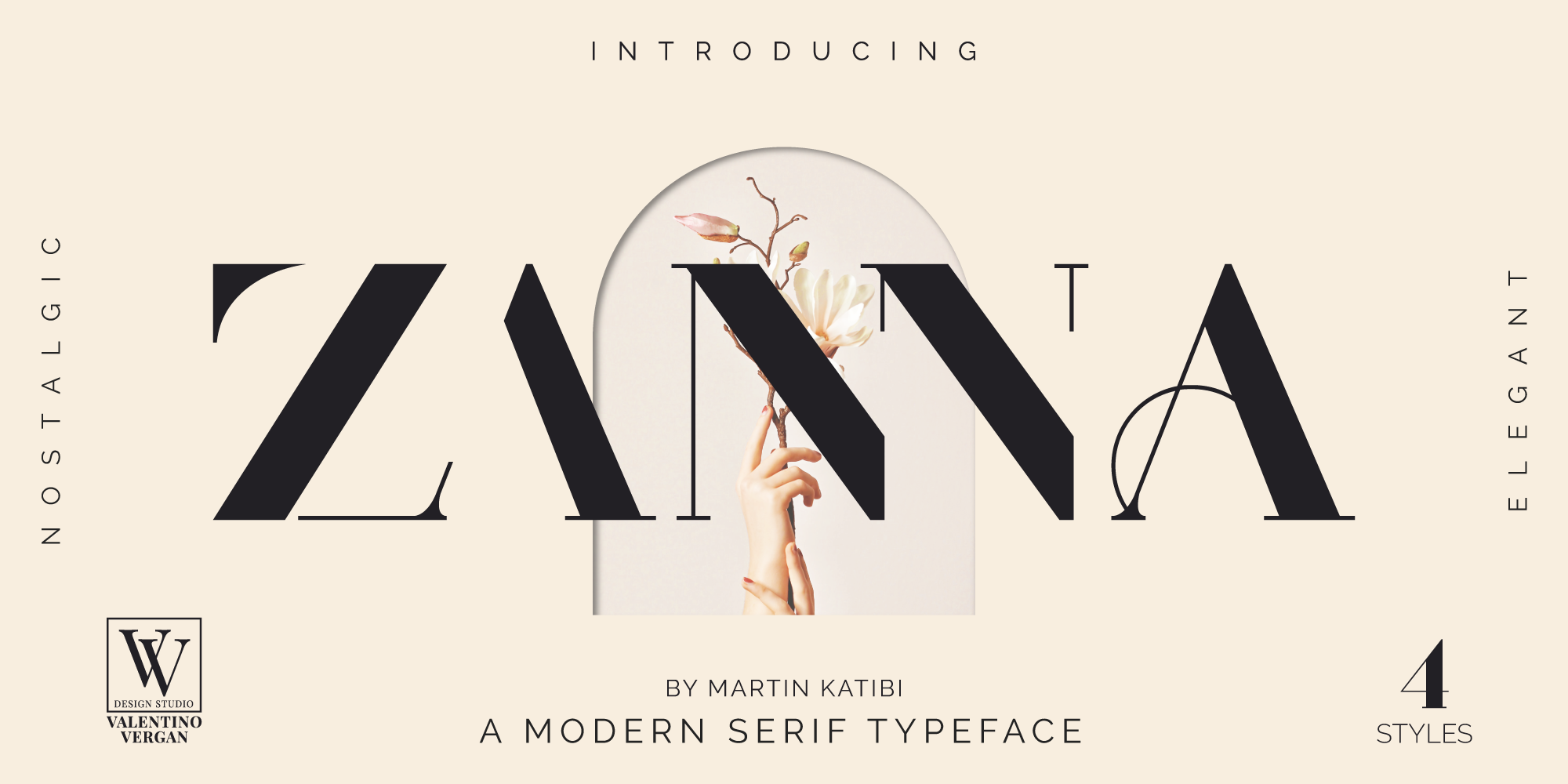
Zanna Font is perfect for contemporary fashion brands, modern lifestyle magazines, trendy boutique signage, creative agency identities, artistic portfolio designs, innovative product packaging, stylish event materials, and cutting-edge digital interfaces.
Zanna Font is exciting because it embodies contemporary sophistication and artistic flair through its distinctive character design that perfectly balances modern elegance with creative expression. Its stylish aesthetics and innovative appeal make it the perfect choice for brands that want to communicate creativity, sophistication, and the forward-thinking spirit of contemporary design culture.
Zanna Font family includes multiple stylish variations: Zanna Light, Zanna Regular, Zanna Medium, Zanna Bold, Zanna Italic, and Zanna Display, along with contemporary decorative elements and modern symbols, providing designers with comprehensive tools for creating sophisticated modern and creative brand experiences.
When exploring contemporary typography solutions, Zanna Font Free Download emerges as the premier choice for designers working on fashion and creative projects that require genuine modern sophistication and artistic appeal. This elegant typeface embodies the essence of contemporary style while offering the technical precision that modern fashion brands and creative agencies require. The font's stylish character and artistic authenticity create immediate connections with audiences who appreciate modern design and creative excellence.
Creative professionals consistently rely on Zanna Font for projects requiring authentic contemporary sophistication and powerful artistic appeal. Its expertly crafted letterforms feature modern influences that work exceptionally well in both large-scale fashion retail displays and intimate creative portfolio presentations. The font's ability to convey style and creative innovation while maintaining strong brand recognition makes it invaluable for comprehensive identity systems in the fashion, creative services, and contemporary lifestyle sectors.
Whether you're developing fashion brand identities, creating modern lifestyle marketing materials, or designing contemporary art exhibitions, Zanna Font delivers the authentic stylish character and artistic appeal that resonates with audiences who embrace modern design and creative innovation. Its contemporary significance and sophisticated design ensure your projects communicate cutting-edge style while maintaining professional standards that attract modern consumers and creative professionals.